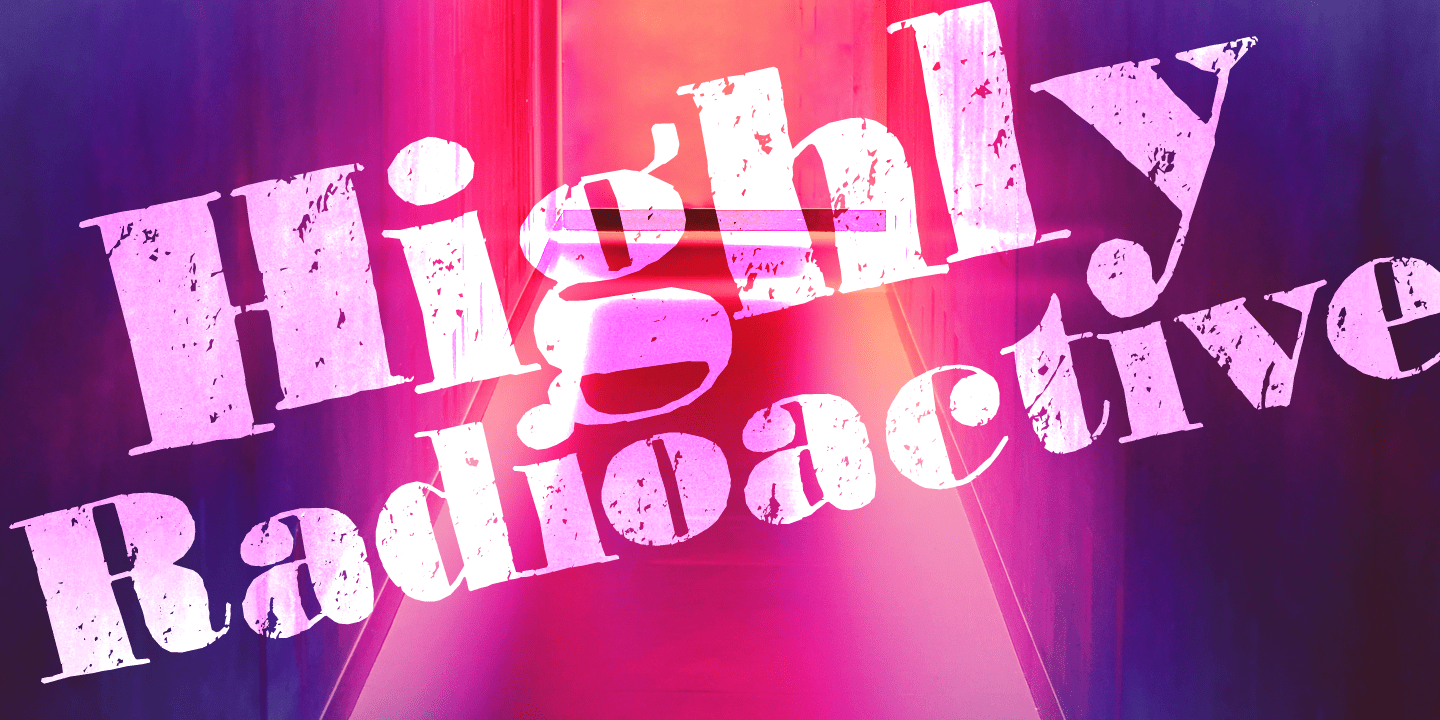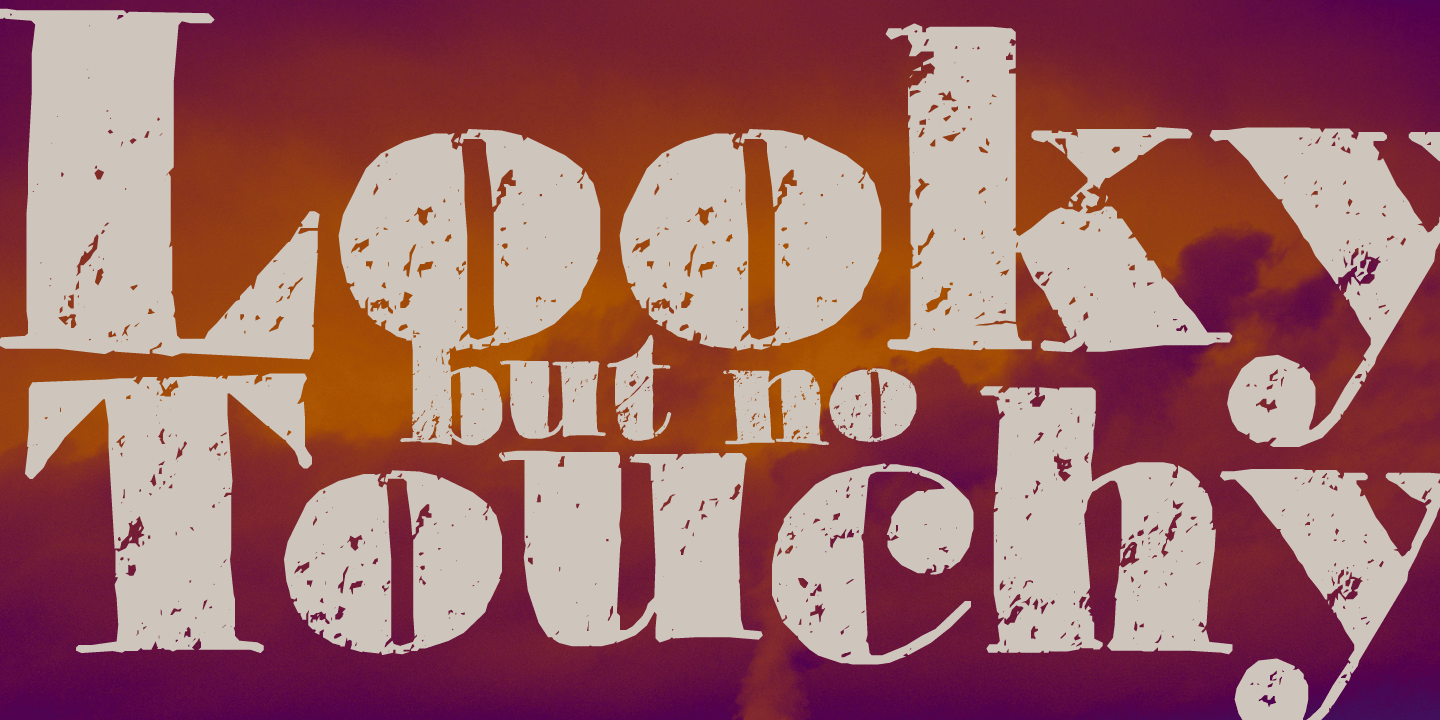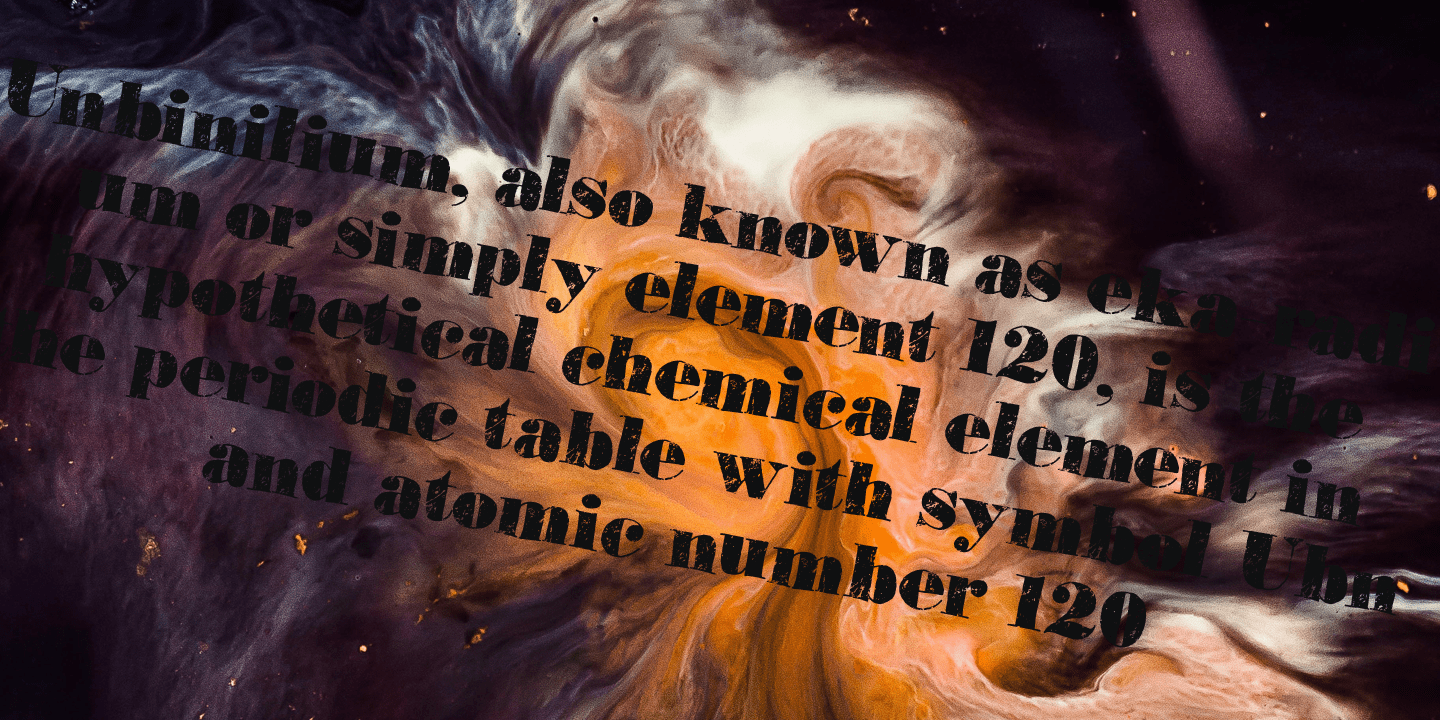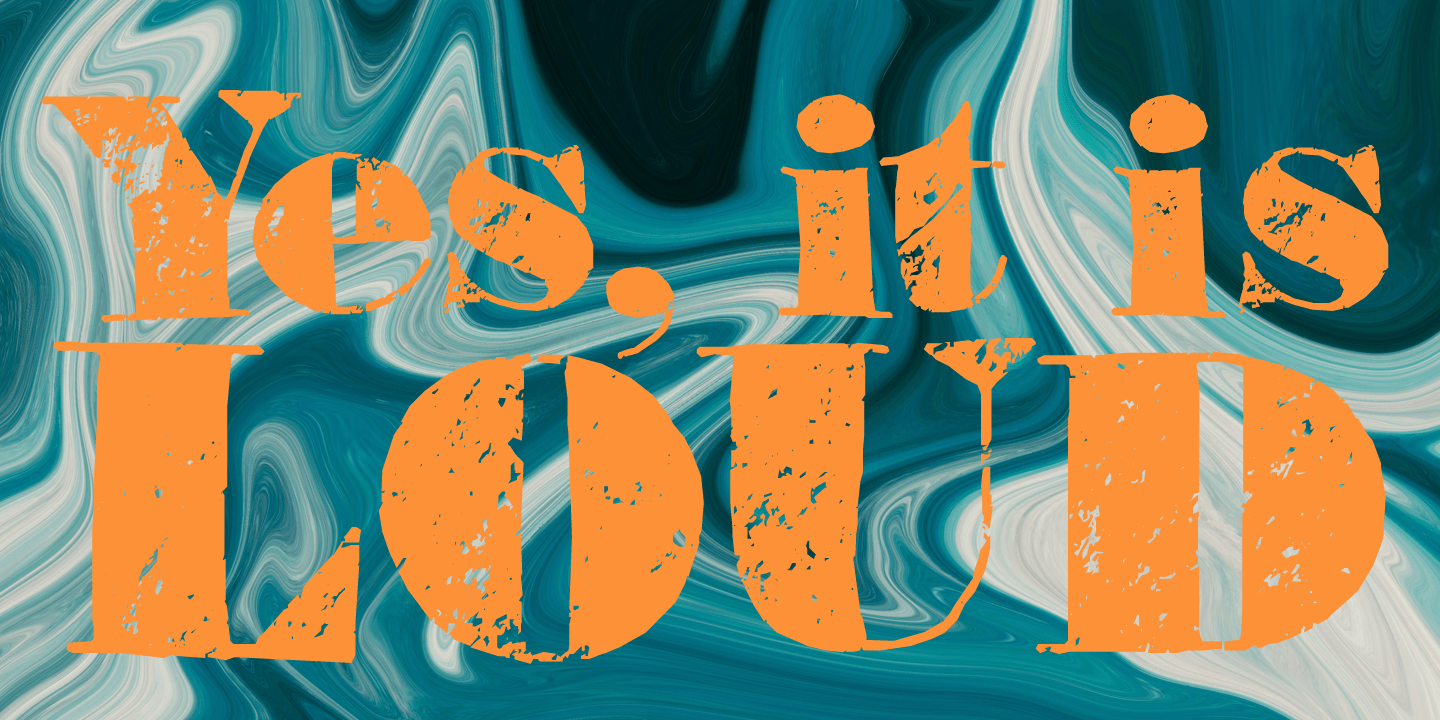
About Element 120
Element 120 (Unbinilium) is a hypothetical chemical element in the periodic table. You can forget about that, I just thought it was a cool name for a font. Element 120 is a hand drawn Ultra Bodoni. I drew all the glyphs by hand, then gave them a good…